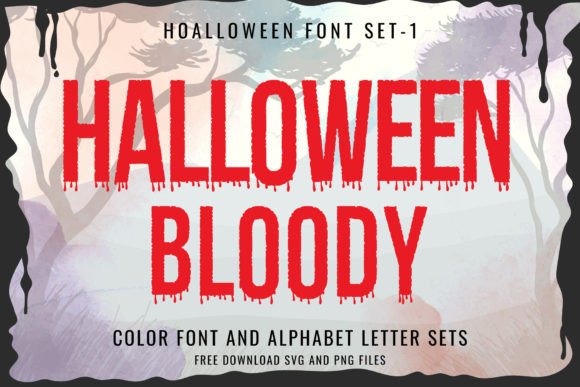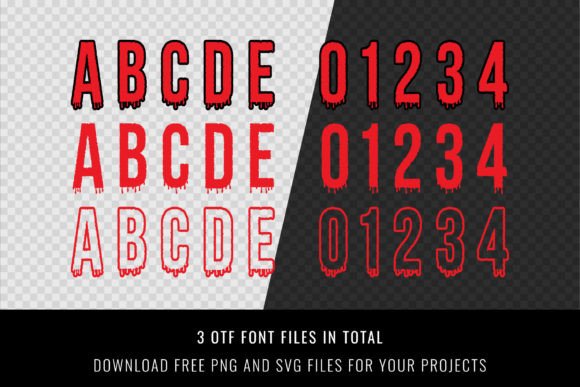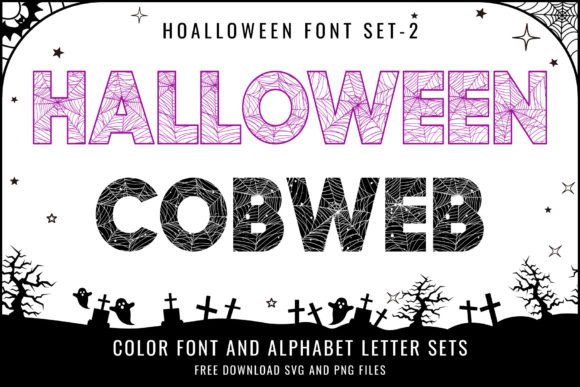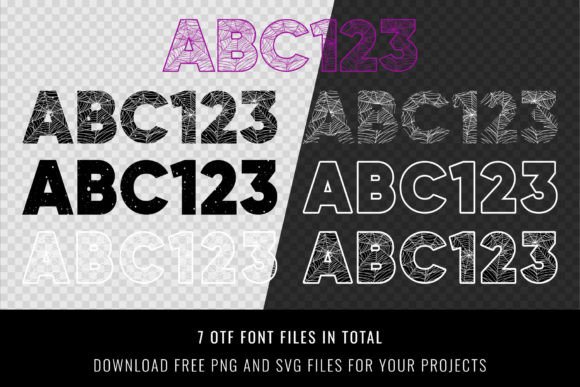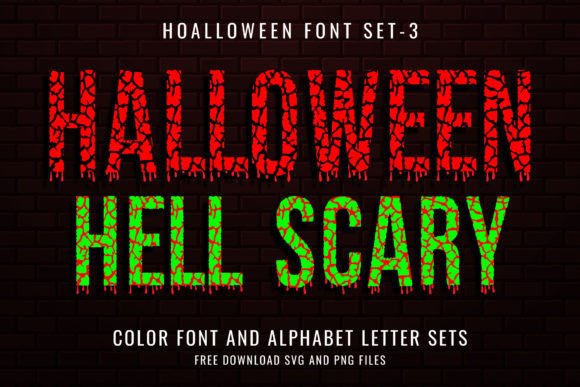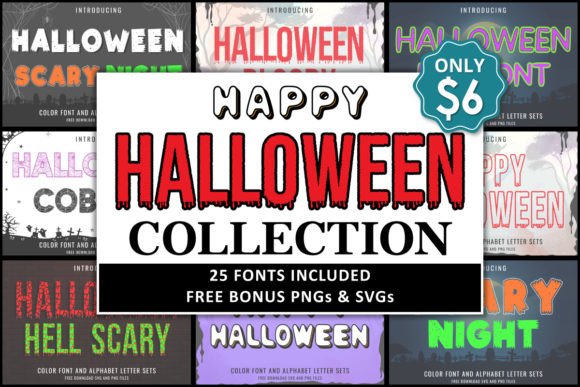
Happy Halloween Collection Font: A Spine-Chilling Addition to Your Design Arsenal
As the spookiest time of the year approaches, designers and crafters are on the lookout for fonts that can add a bone-chilling touch to their Halloween-themed projects. Look no further than the Happy Halloween Collection Font, a terrifying font that perfectly captures the essence of the ghosts and ghouls that haunt your imagination. This comprehensive font collection contains 25 fonts from 6 typefaces, making it an indispensable resource for anyone looking to create eerie and eye-catching designs.
A Font Collection Like No Other
The Happy Halloween Collection Font is not just a single font, but a collection of 25 fonts, each with its own unique character and style. With 6 typefaces to choose from, you’ll have a wide range of options to suit your design needs. Whether you’re creating haunted house posters, eerie party invitations, or any other Halloween-themed project, this font collection has got you covered.
Bone-Chilling Designs Ahead
What sets the Happy Halloween Collection Font apart is its ability to evoke the spooky and supernatural atmosphere of Halloween. The fonts are designed to send shivers down your spine, making them perfect for projects that require a creepy and eerie feel. Imagine creating designs that make your audience scream with delight – with this font collection, that’s now a possibility.
Whether you’re a designer, crafter, or DIY enthusiast, this font collection is sure to inspire your creativity and help you create unique and eye-catching designs.
Why Choose the Happy Halloween Collection Font?
So why choose the Happy Halloween Collection Font over other font collections? Here are just a few reasons:
- Unique and terrifying designs: The fonts in this collection are designed to evoke the spooky and supernatural atmosphere of Halloween, making them perfect for projects that require a creepy and eerie feel.
- Endless creative possibilities: The Happy Halloween Collection Font is perfect for a wide range of creative projects, from t-shirts to tumblers.
Whether you’re a seasoned designer or a DIY enthusiast, the Happy Halloween Collection Font is sure to be a valuable addition to your design arsenal.
Get Ready to Cast a Spell with Your Designs